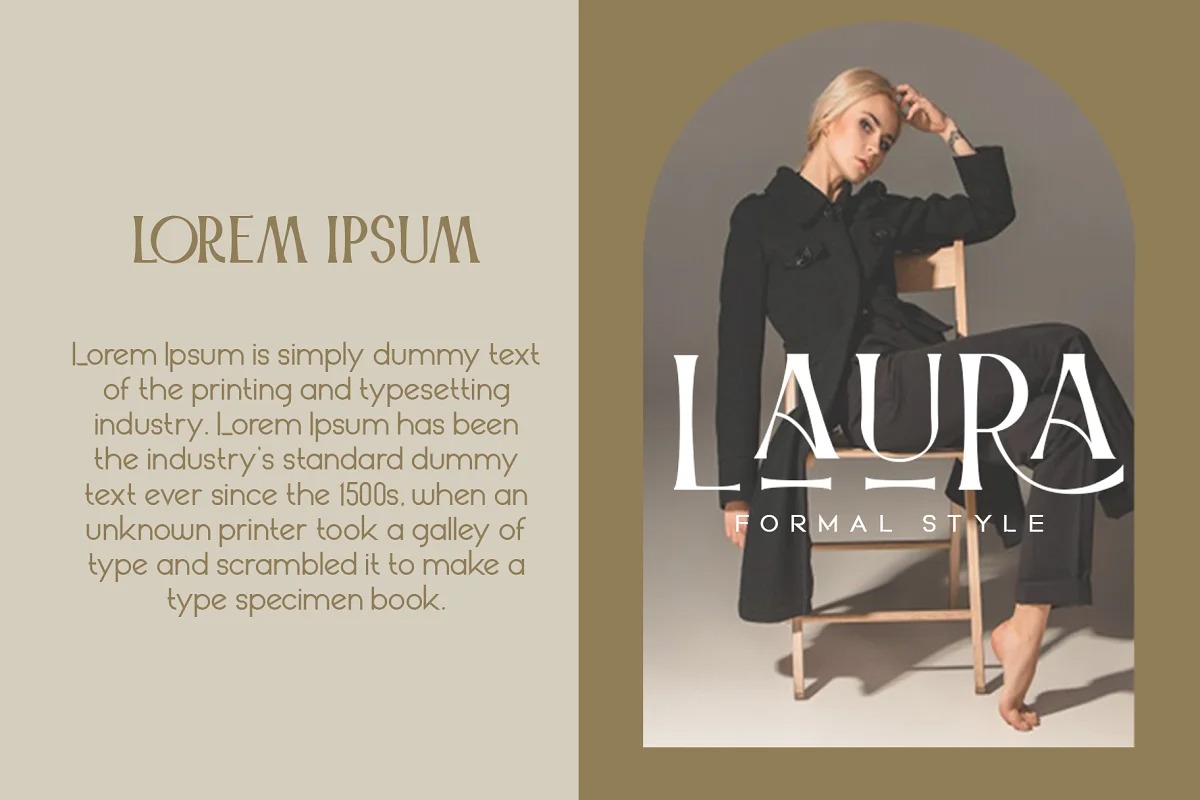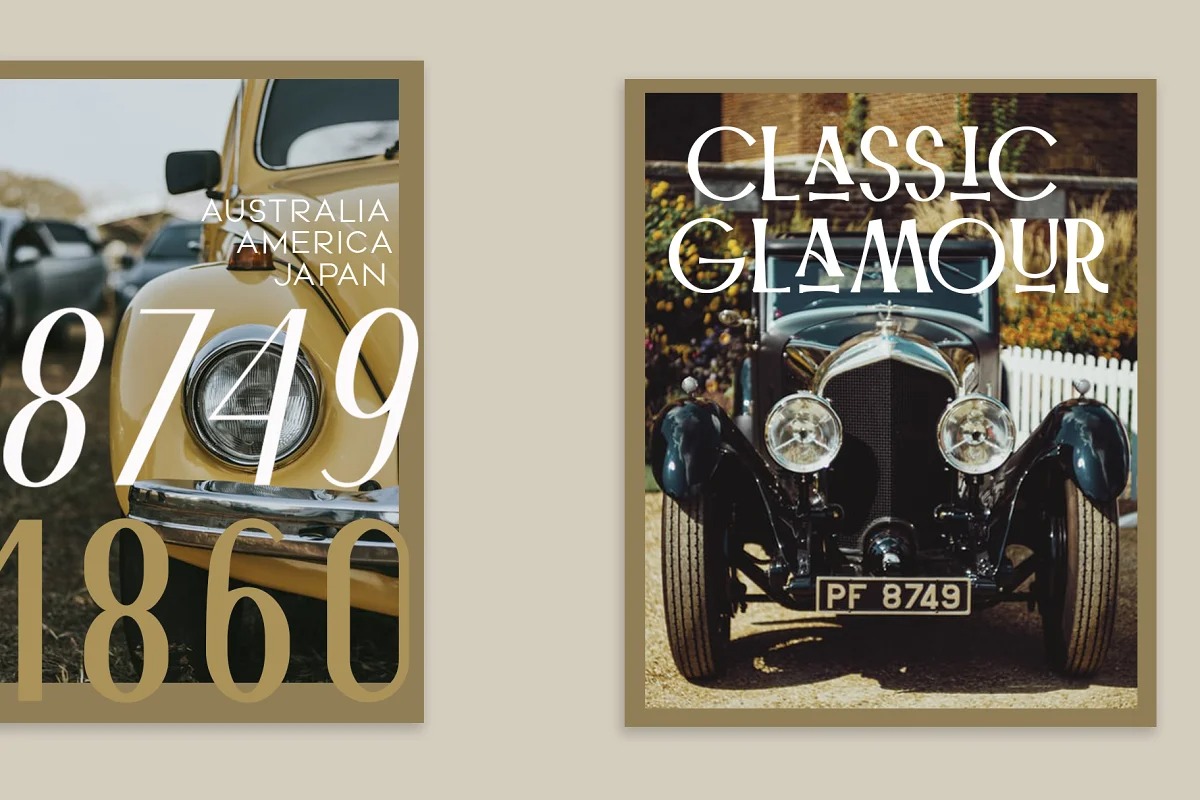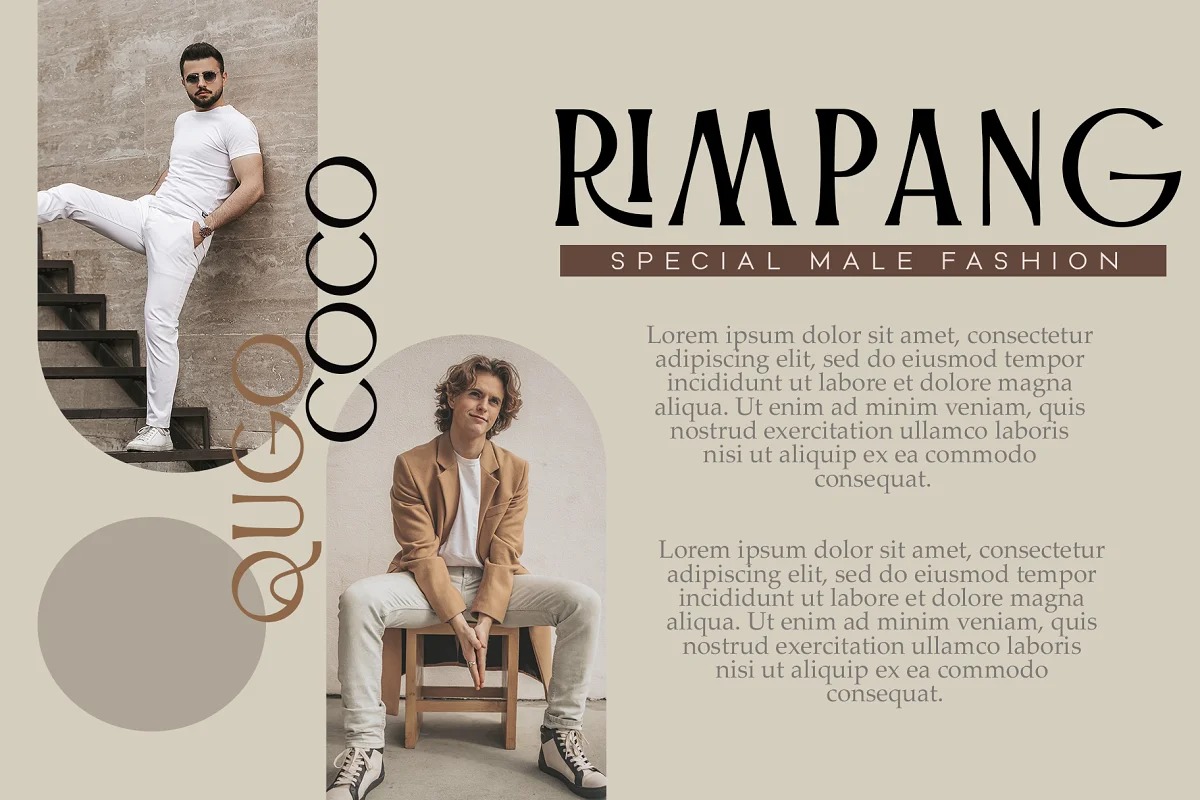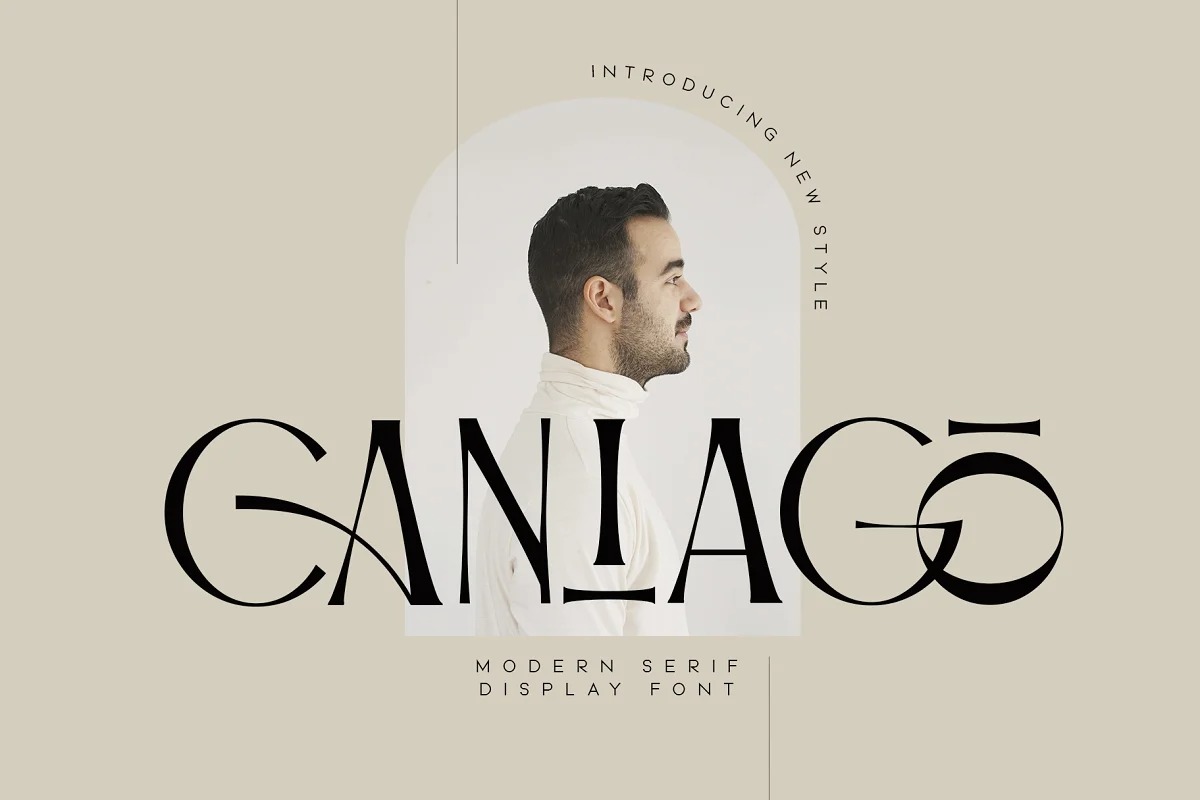
Caniago Serif Font
This is a modern and elegant display serif typeface crafted & designed by Wildan Type. It is defined by smooth curves and is perfect for fashion branding or editorial designs. It has unic construction for future style. Caniago perfectly used for product presentation, elegant logo design, packaging or invitation cards or heading text. it is allcap with symbol and multilingual support.